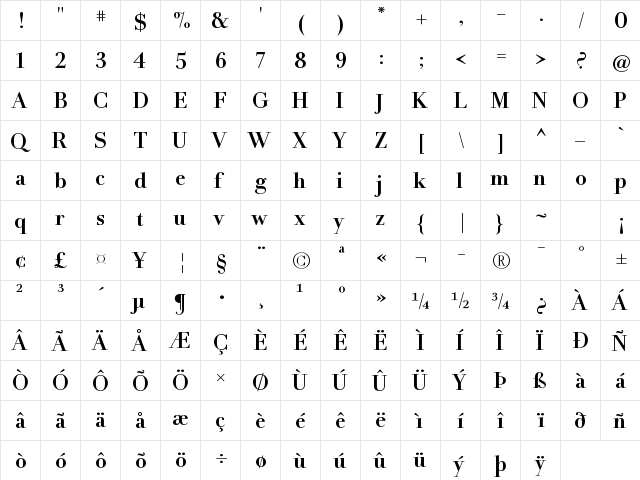
Andrade Pro Bold Font Preview
Andrade Pro Bold
Andrade Pro Bold Font Details
| Foundry | Dino dos Santos _DSType |
| Designer | Dino dos Santos |
Design Context for Andrade Pro Typeface
Andrade Pro takes a measured approach to typography — its balanced proportions and neutral character make it a reliable workhorse for both digital and print work. Its bold stroke weight gives it real presence on the page.